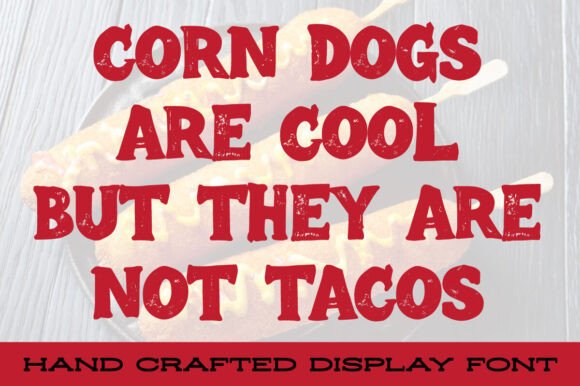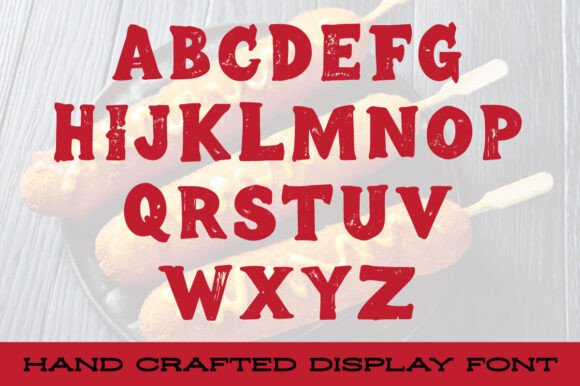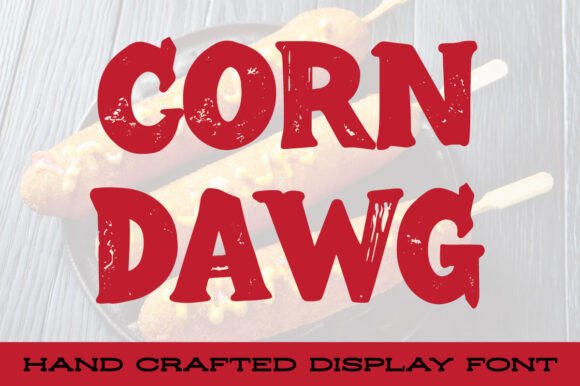
Corn Dawg Font: The Perfect Blend of Rustic Charm and Playful Whimsy
In the world of typography, fonts can make or break a design. A well-chosen font can elevate a project from ordinary to extraordinary, while a poorly chosen one can leave it flat. For designers and crafters looking to add a touch of personality to their work, the Corn Dawg font is an excellent choice. This bold, hand-painted serif font is perfect for creating eye-catching signage, event posters, and unique branding that stands out from the crowd.
The Unique Characteristics of Corn Dawg Font
Corn Dawg is a one-of-a-kind font that combines the best of both worlds: rugged authenticity and approachable whimsy. Its thick, textured strokes give it a rough-around-the-edges feel, while its classic serif details add a touch of sophistication. The result is a font that is both bold and charming, perfect for designers who want to make a statement.
Perfect for Eye-Catching Signage and Event Posters
One of the key benefits of the Corn Dawg font is its ability to grab attention. Its bold, thick strokes and textured finish make it perfect for signage and event posters that need to stand out in a crowded space. Whether you’re designing a poster for a music festival, a sign for a craft fair, or a banner for a sporting event, Corn Dawg is sure to turn heads.
Adding a Touch of Personality to Your Branding
In today’s competitive market, branding is more important than ever. A well-designed brand identity can help you stand out from the competition and build a loyal following. The Corn Dawg font is perfect for crafters and small business owners who want to add a touch of personality to their branding. Its unique blend of rustic charm and playful whimsy makes it perfect for brands that want to appear approachable and fun.
Design Inspiration: How to Use Corn Dawg Font
So, how can you use the Corn Dawg font in your designs? Here are a few ideas to get you started:
- Pair it with bold colors: The Corn Dawg font looks amazing with bold, bright colors. Try pairing it with a bold red or blue to create a striking contrast.
- Use it for headlines: The Corn Dawg font is perfect for headlines and titles. Its bold, thick strokes make it easy to read, even at large sizes.
- Add some texture: The Corn Dawg font has a textured finish, but you can take it to the next level by adding some texture to your design. Try adding a woodgrain or burlap texture to give your design a rustic feel.
In conclusion, the Corn Dawg font is a unique and versatile font that is perfect for designers and crafters looking to add a touch of personality to their work. Its bold, hand-painted serif design makes it perfect for eye-catching signage, event posters, and creative branding. Whether you’re designing for a client or working on a personal project, Corn Dawg is sure to bring a dash of personality to your design.
Get Creative with Corn Dawg Font